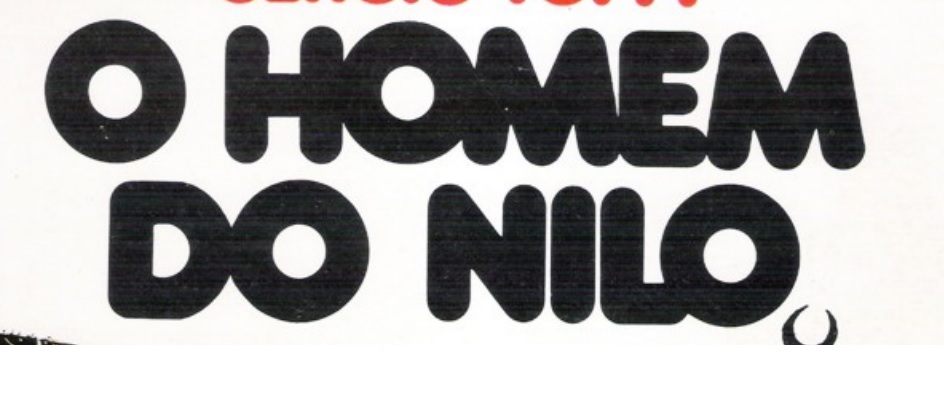
Torus Heavy looks like a good candidate, but the middle apex of the M doesn’t reach the baseline.
VAG Rounded is close, too, but the O is very slightly flattened on the sides.
looks like a font I used.